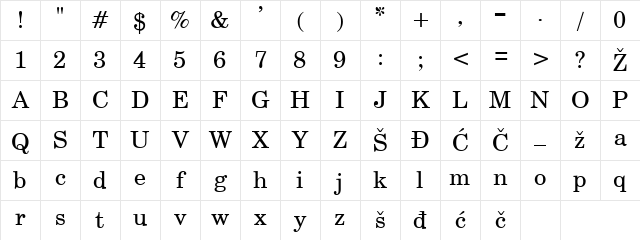
Schoolbook YU Regular
Design Context for Schoolbook YU
Schoolbook YU is a composed and adaptable typeface that performs quietly and consistently across a wide range of design contexts.